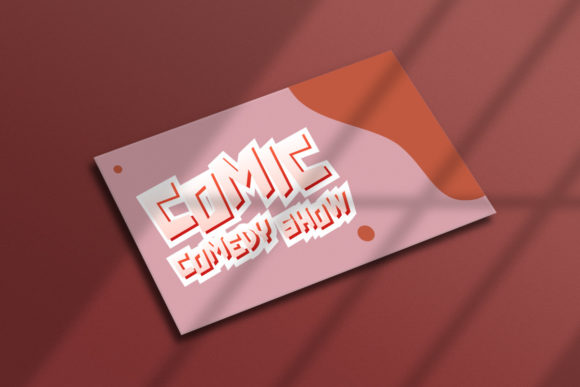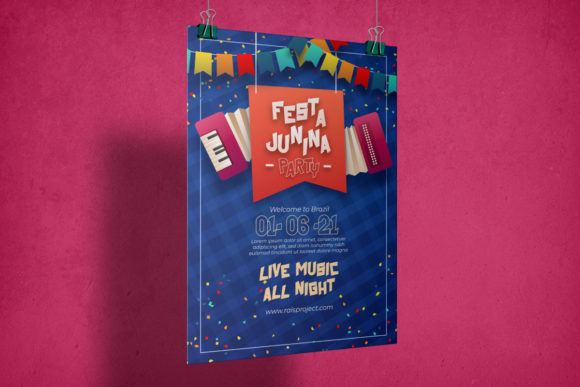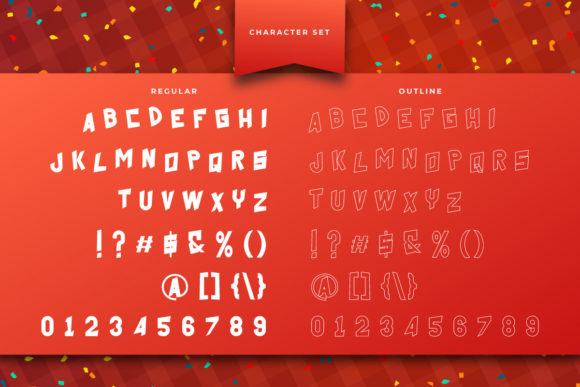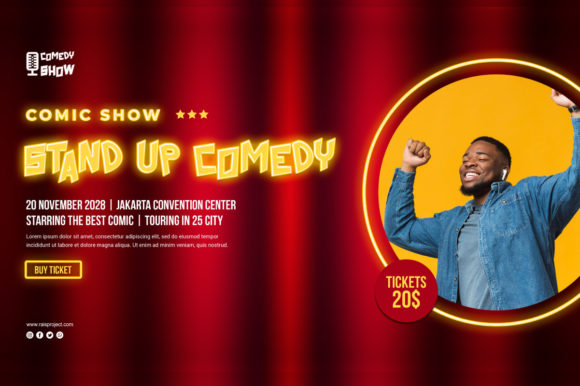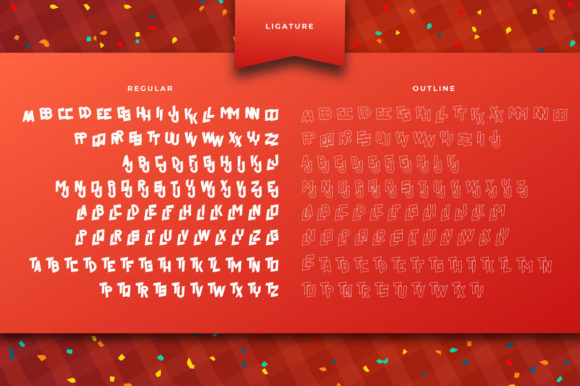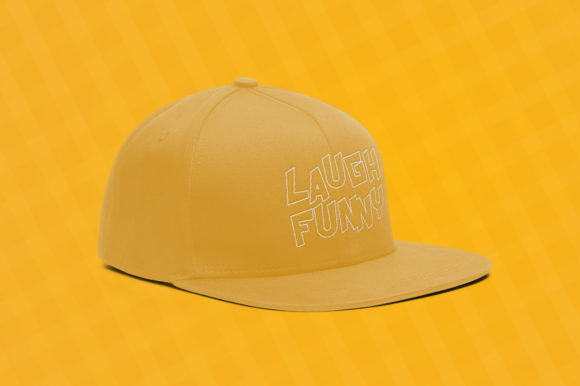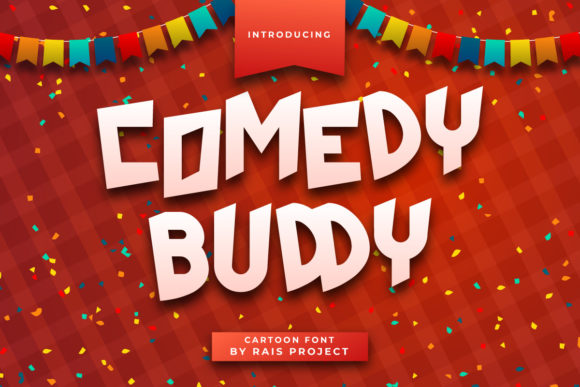
Introducing Comedy Buddy Font: The Ultimate Display Font for Creative Projects
Are you a designer, crafter, or DIY enthusiast looking for a unique and eye-catching font to elevate your creative projects? Look no further than Comedy Buddy Font! This distinctive display font is perfect for logos, branding, social media, and a wide range of crafty DIY projects. In this article, we’ll dive into the features and benefits of Comedy Buddy Font, and explore how it can add a touch of humor and personality to your designs.
What is Comedy Buddy Font?
Comedy Buddy Font is a one-of-a-kind display font designed to add a dash of humor and whimsy to your creative projects. Its unique and quirky style makes it stand out from more traditional fonts, and its versatility ensures it can be used in a variety of contexts. Whether you’re designing a logo, creating social media graphics, or working on a crafty DIY project, Comedy Buddy Font is the perfect choice.
Key Features of Comedy Buddy Font
- Unique and quirky style: Comedy Buddy Font boasts a distinctive and playful design that’s sure to grab attention.
- Versatile: This font can be used in a wide range of creative projects, from logos and branding to social media graphics and DIY crafts.
- Easy to read: Despite its playful style, Comedy Buddy Font is clear and easy to read, making it perfect for use in a variety of contexts.
- Scalable: This font is designed to look great at any size, from small social media graphics to large billboards.
If you’re looking to create a logo or brand identity that stands out from the crowd, Comedy Buddy Font is an excellent choice. Its unique style ensures your brand will be memorable and eye-catching, and its versatility means it can be used across a range of platforms, from business cards to billboards.
Ideal for Social Media Graphics
Social media is a crowded space, and it’s essential to create graphics that grab attention. Comedy Buddy Font is perfect for social media graphics, from Facebook posts to Instagram stories. Its playful style ensures your graphics will stand out, and its ease of use means you can create professional-looking graphics in no time.
Crafty DIY Projects
If you’re a crafter or DIY enthusiast, Comedy Buddy Font is a great addition to your design toolkit. Use it to create eye-catching titles for your handmade products, or to add a touch of personality to your craft tutorials. This font is perfect for a wide range of DIY projects, from scrapbooking to papercraft.
Why Choose Comedy Buddy Font?
With so many fonts available, why choose Comedy Buddy Font? Here are just a few reasons:
- Unique style: Comedy Buddy Font is a one-of-a-kind font that’s sure to make your designs stand out.
- Versatile: Comedy Buddy Font can be used in a wide range of creative projects, from logos to DIY crafts.
- High-quality: This font is designed to be clear and easy to read, even at small sizes.
If you’re looking for a unique and eye-catching font to elevate your creative projects, Comedy Buddy Font is an excellent choice. Its playful style, versatility, and ease of use make it perfect for logos, branding, social media graphics, and crafty DIY projects. With Comedy Buddy Font, you can add a touch of humor and personality to your designs, and create projects that stand out from the crowd.